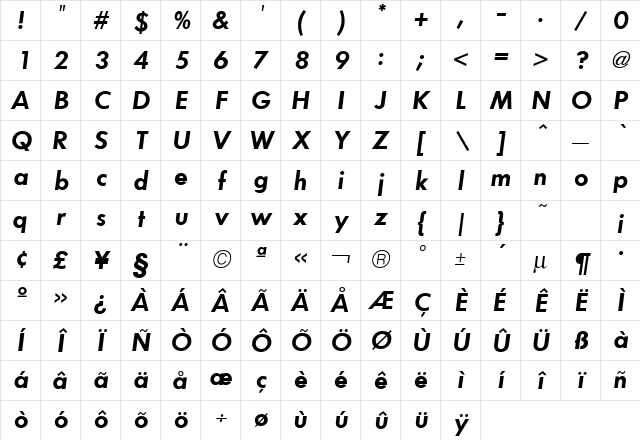
Futura ICG Demi Oblique
Style: Demi Oblique
Complete Futura ICG Demi Oblique glyph index. Displaying only characters natively supported by Futura ICG Demi Oblique font.
Design Context for Futura ICG
Futura ICG has a distinctly futuristic character, with geometric precision and clean angles that feel at home in technology, gaming, and sci-fi contexts. The slanted form adds forward momentum and visual energy.